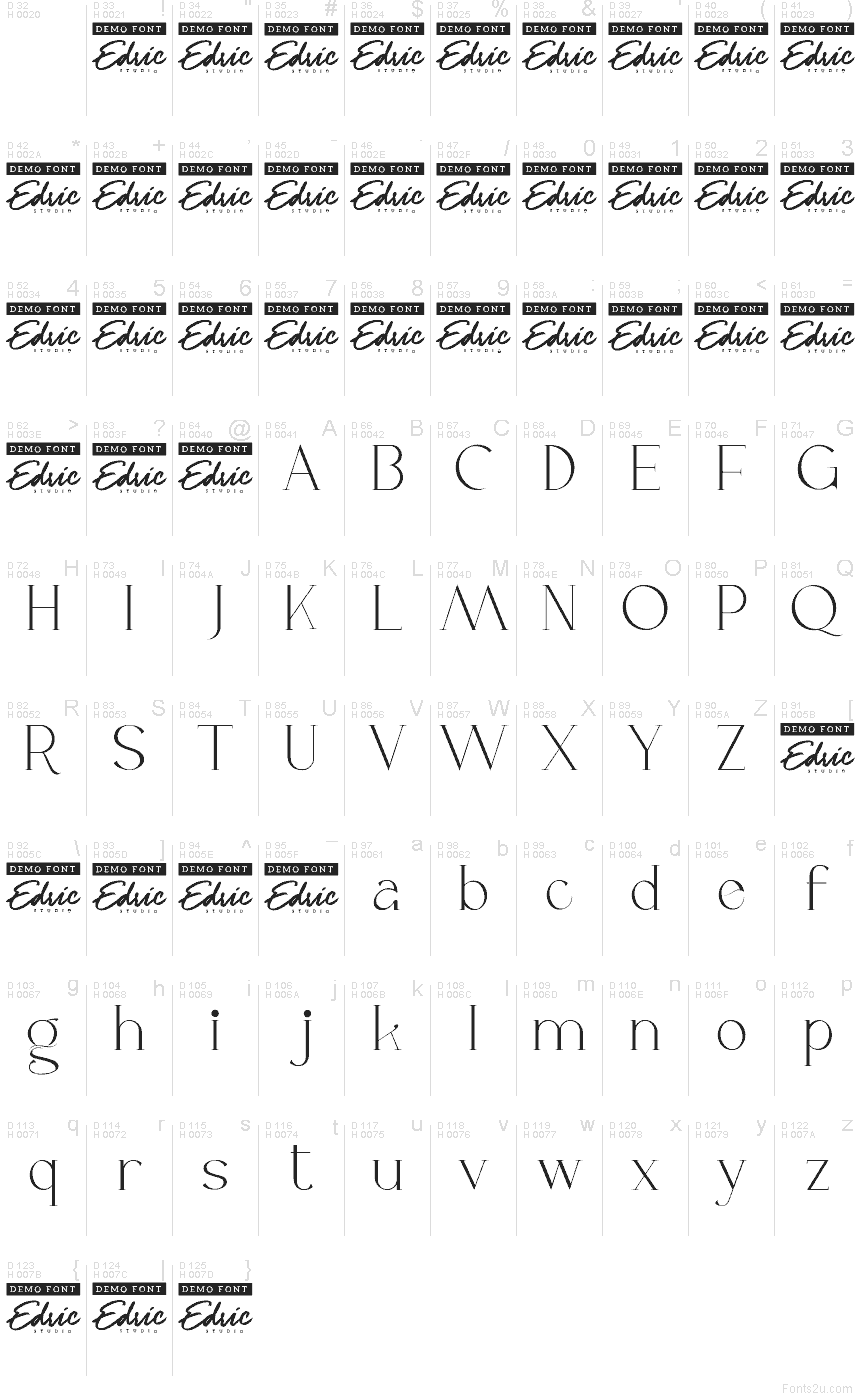
Night Lover Demo
Night Lover font by Edric Studio is a free serif typeface with a distinct, whisper-thin grace and a dramatic, sweeping rhythm. Its letters feel like they’ve been drawn with a fine ink pen—tall, airy, and poised—while those unexpected flourishes add a sultry, after-dark elegance. There’s a subtle tension between the razor-thin strokes and the generous curves that makes every word look styled rather than simply set.
Using Night Lover, headlines and names instantly take on a couture, editorial mood that suits fashion branding, perfume packaging, book covers, posters, event invitations, and moody social graphics. This free font shines when you give it room to breathe at larger sizes, and it pairs beautifully with a clean geometric sans serif for supporting text that doesn’t steal the spotlight.